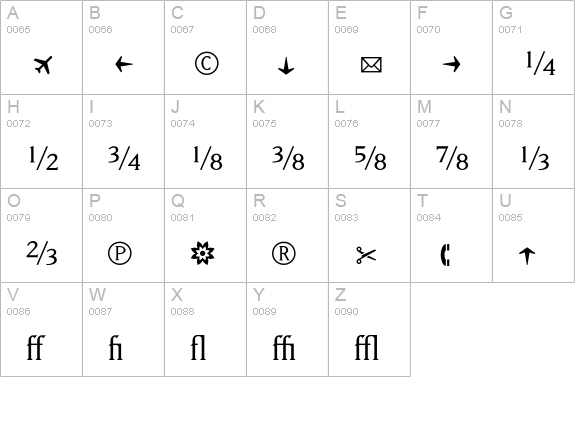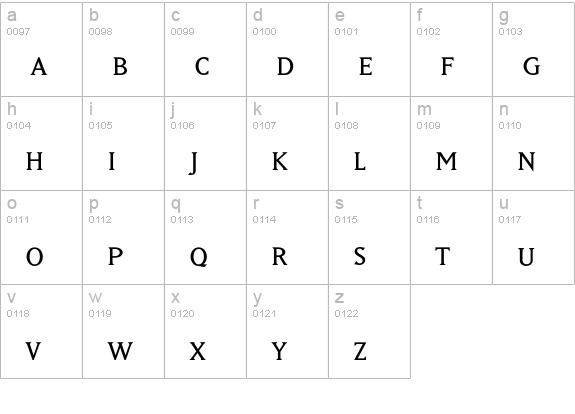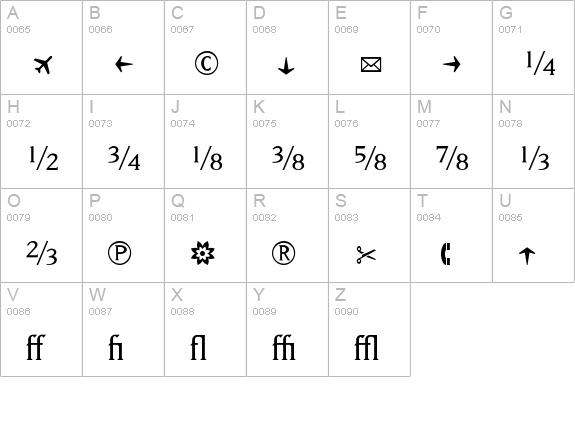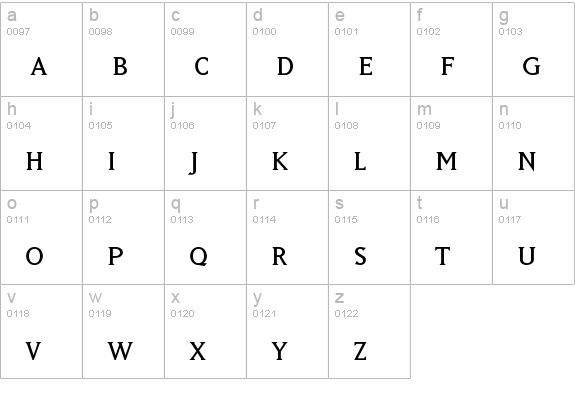
MatrixBookFractions Font Details
MatrixBookFractions font is a sleek and modern typeface designed for optimal readability in print and digital media. With its clean lines and elegant proportions, this font is perfect for projects that require a sophisticated touch. The fractions included in this font set are meticulously crafted to ensure precision and clarity in mathematical and design applications. What sets MatrixBookFractions apart is that it is available for free download at FontsMarket.com. This means that you can easily access and use this versatile font for all your creative projects without any cost. Whether you are designing a professional document, creating a website, or working on a branding project, MatrixBookFractions offers a timeless aesthetic that will elevate your work to the next level. Download MatrixBookFractions font today from FontsMarket.com and experience the beauty and functionality of this exceptional typeface. Elevate your design projects with this elegant and versatile font that is sure to make a lasting impression.